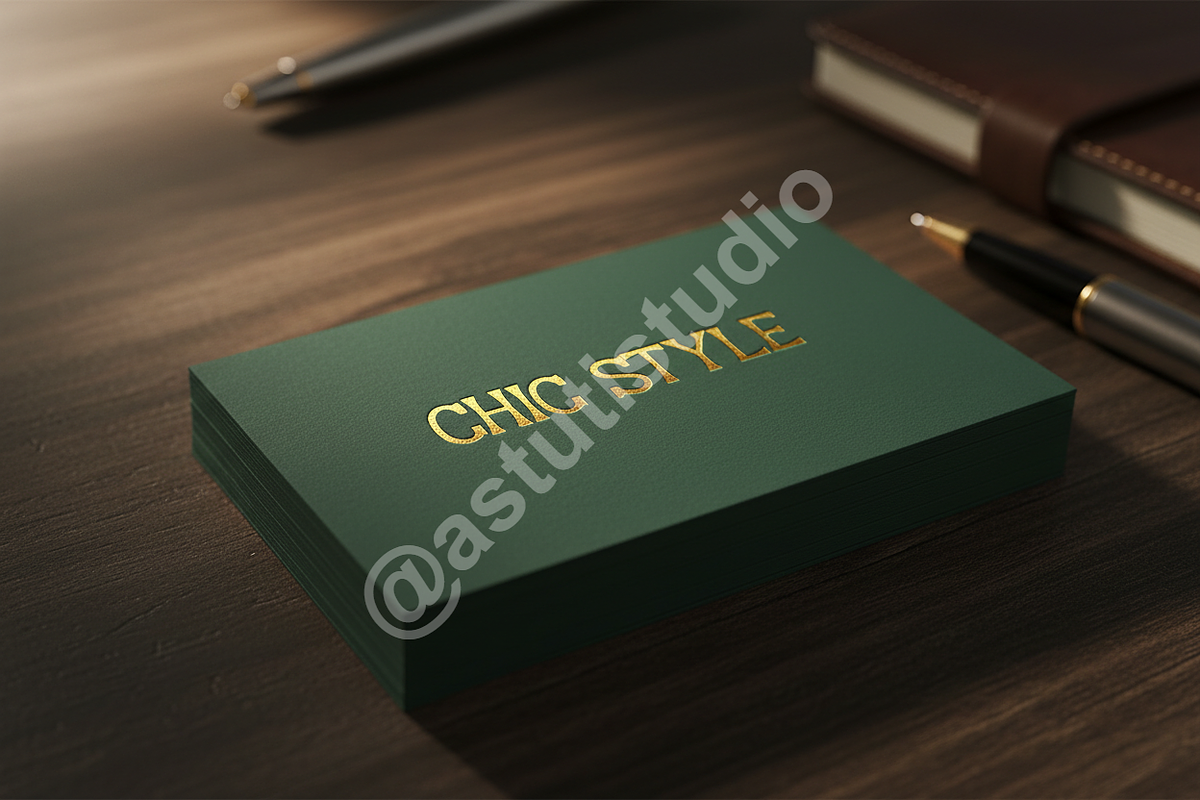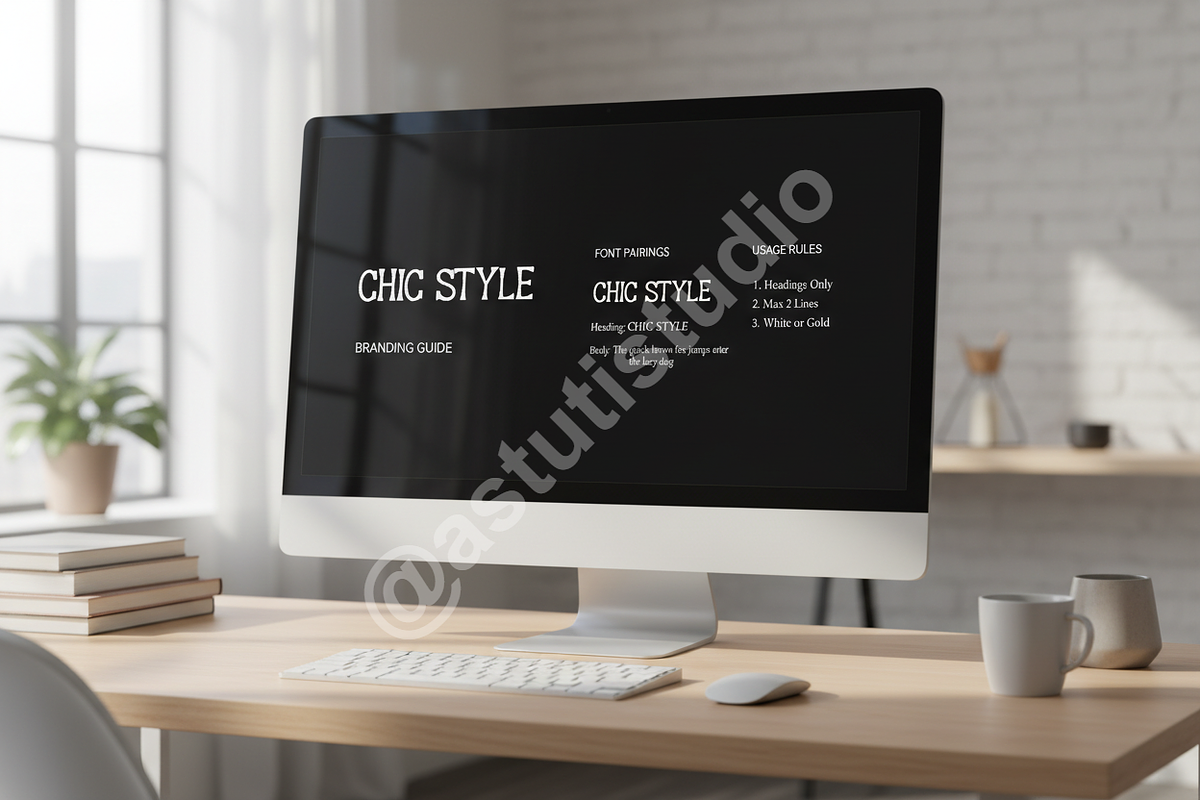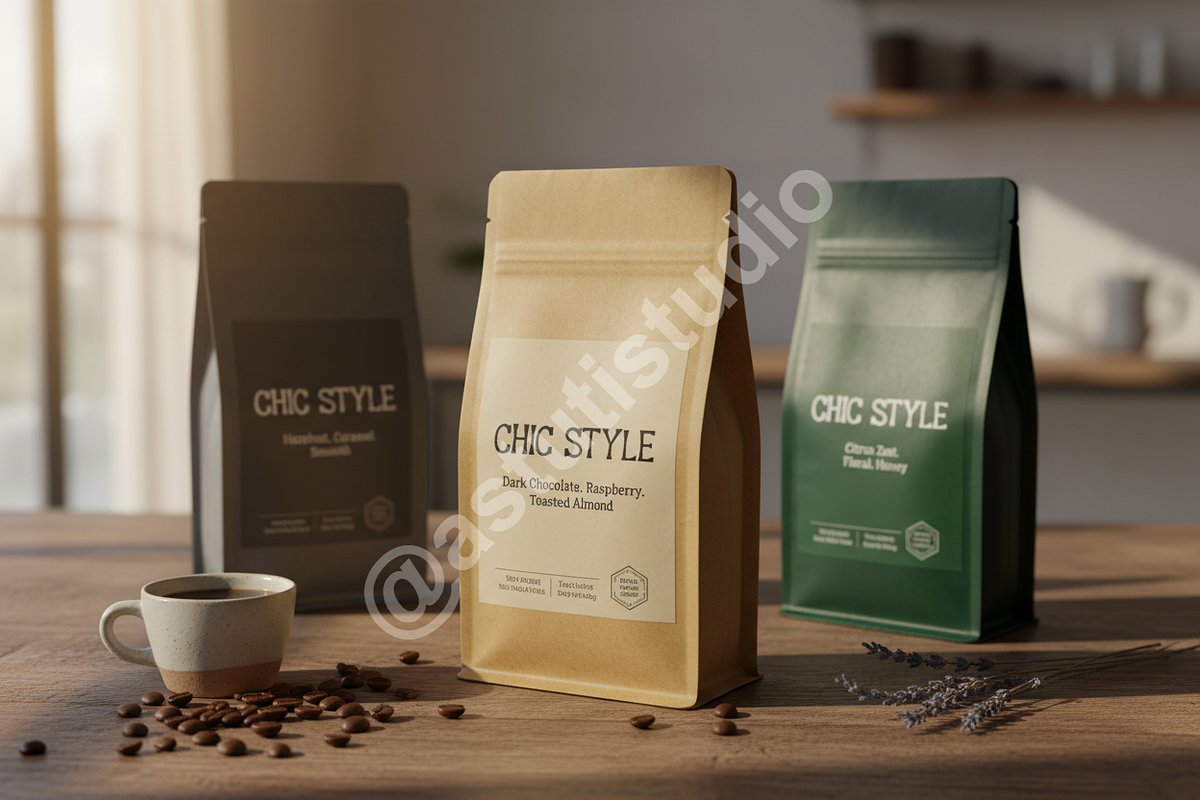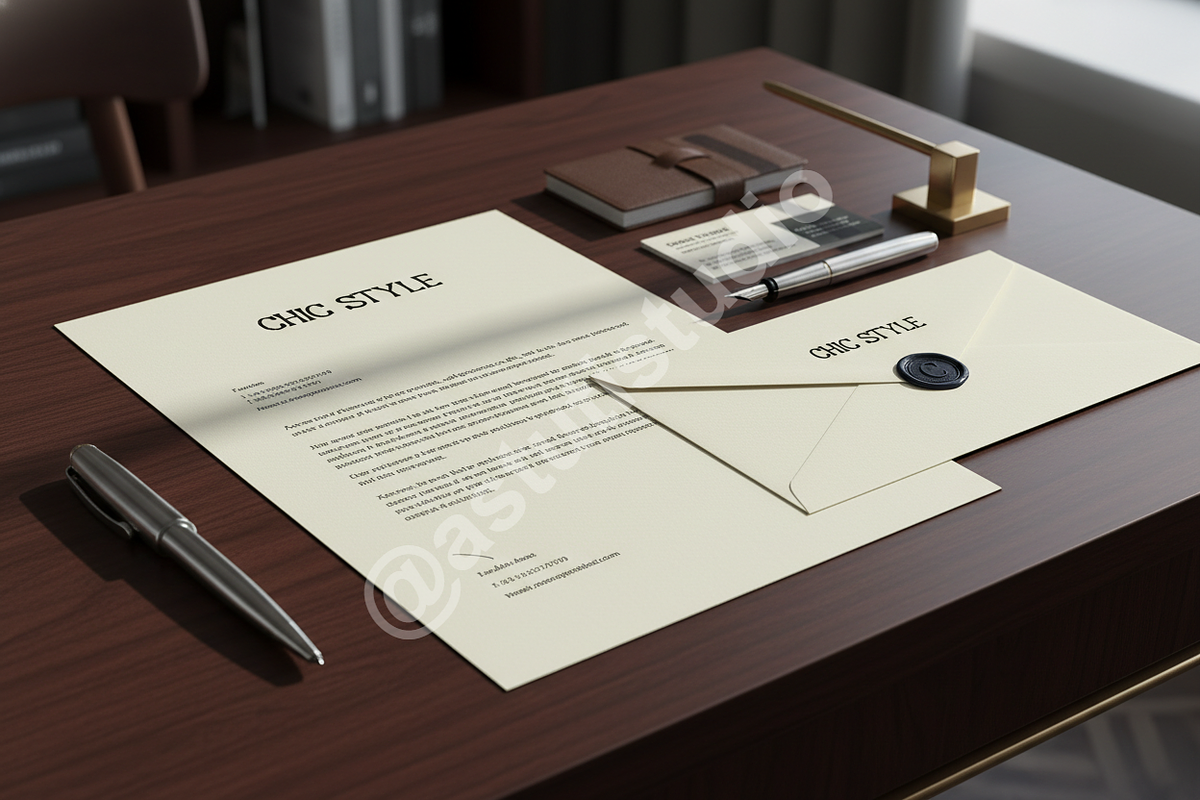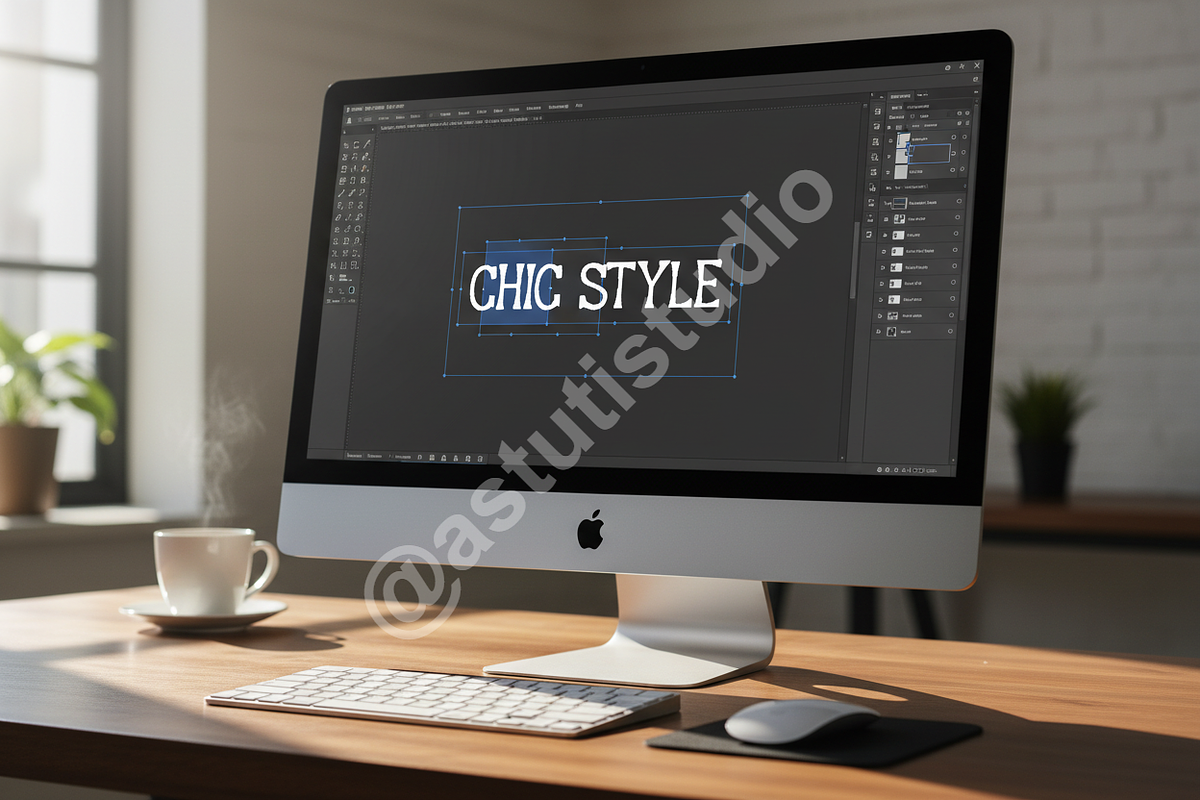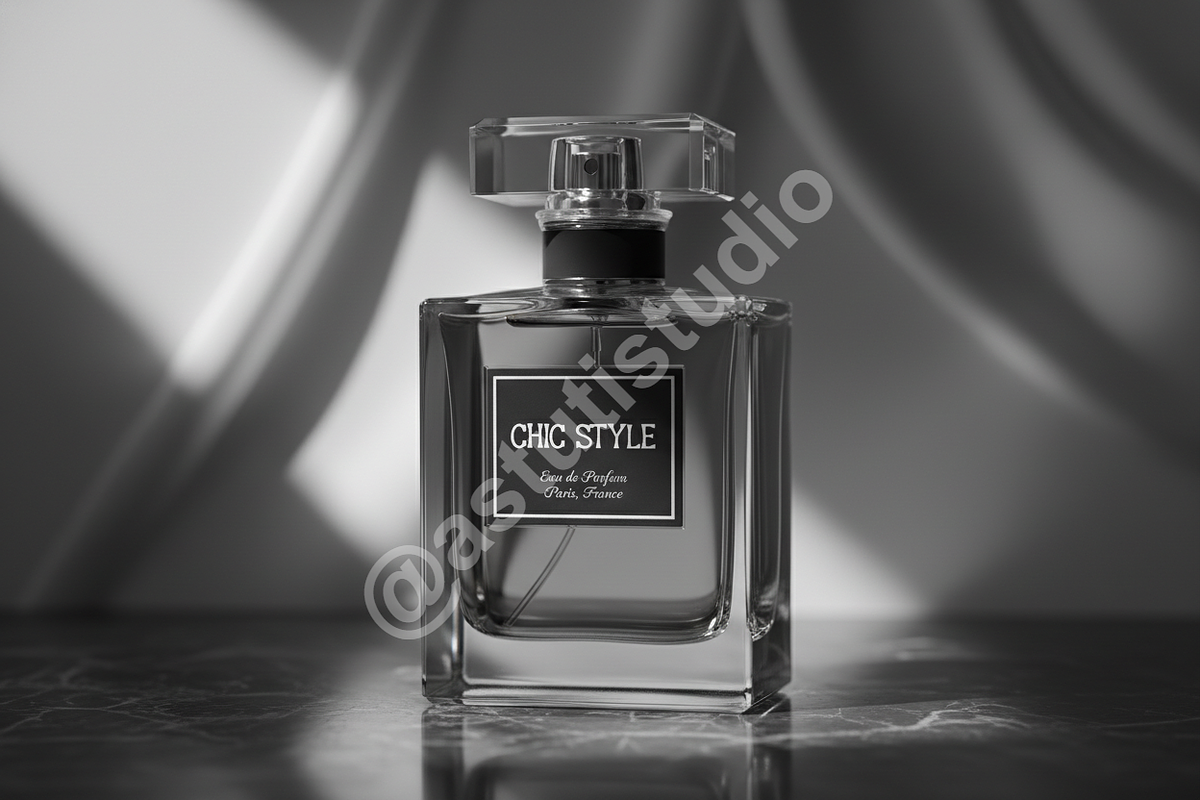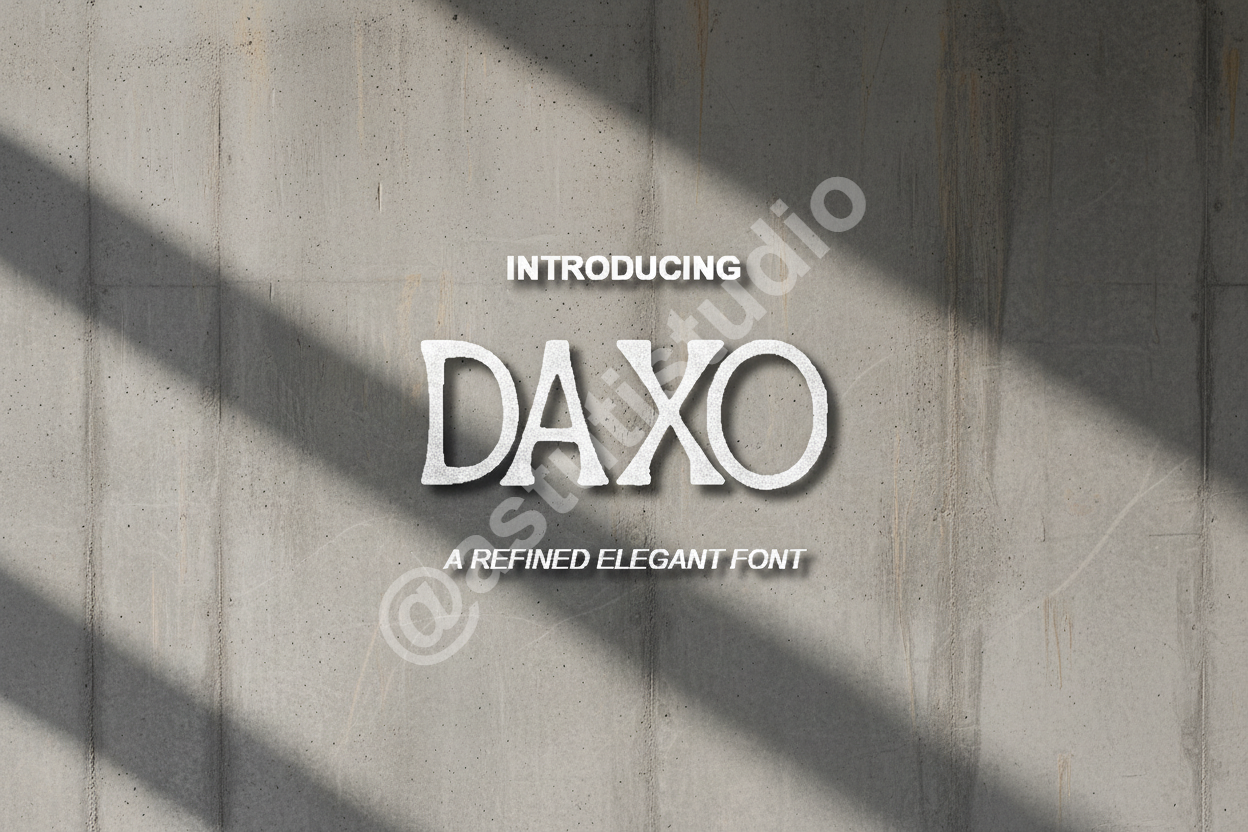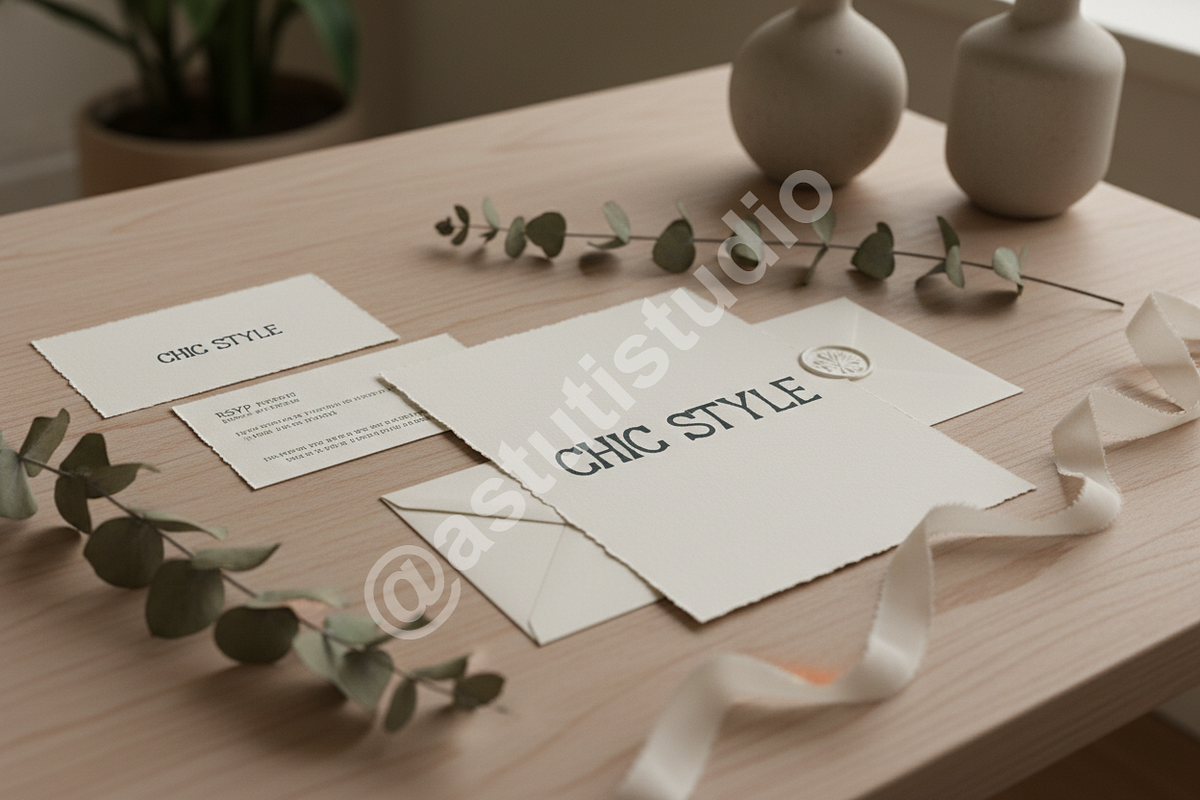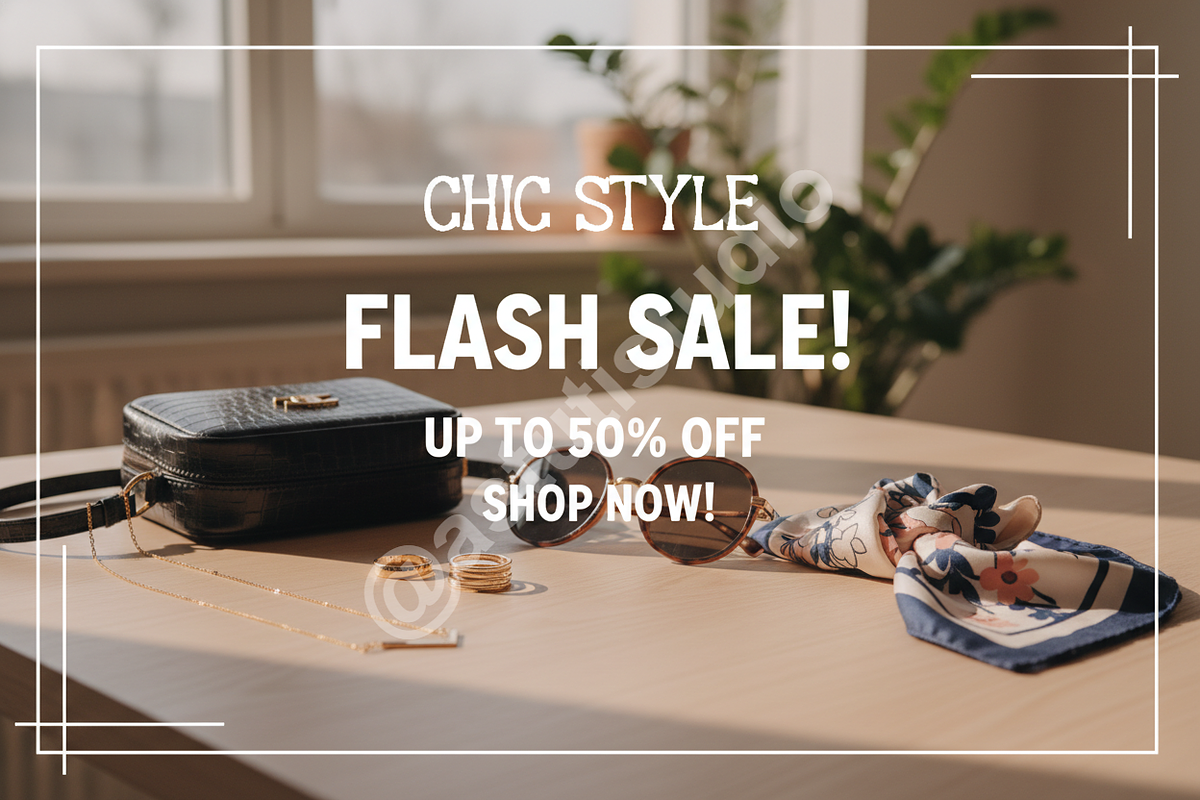
Daxo - Premium Luxury Branding Font
Introducing Daxo, an exquisite sans-serif typeface meticulously crafted for the discerning designer. Daxo embodies a sophisticated blend of timeless elegance and modern minimalist aesthetics, making it the quintessential choice for projects demanding a touch of luxury.
Designed with precision and an eye for subtle detail, Daxo's clean lines and balanced proportions exude professionalism and refinement. It is the perfect typographic foundation for high-end luxury branding, sophisticated editorial layouts, captivating social media campaigns, upscale product packaging, and impactful advertising.
## Features
- Elegant Sans-Serif Design: A versatile and contemporary aesthetic perfect for luxury applications.
- Extensive Character Set: Includes uppercase, lowercase, numbers, and comprehensive punctuation.
- Multilingual Support: Offers broad language support to reach a global audience.
- Optimized Spacing & Kerning: Ensures beautiful readability across various platforms and sizes.
- Ideal for Display & Body Text: Performs beautifully as headlines and in smaller body copy.